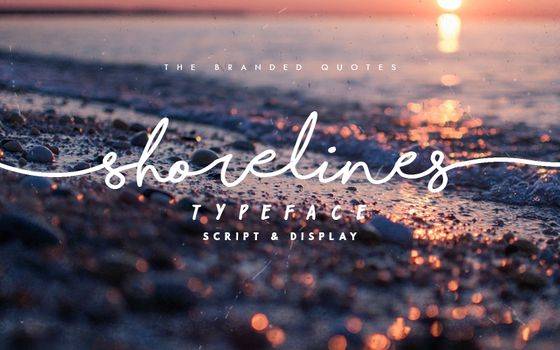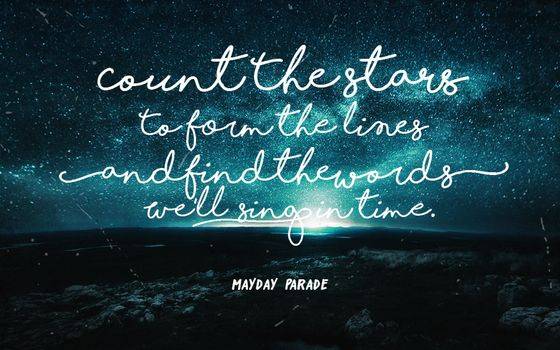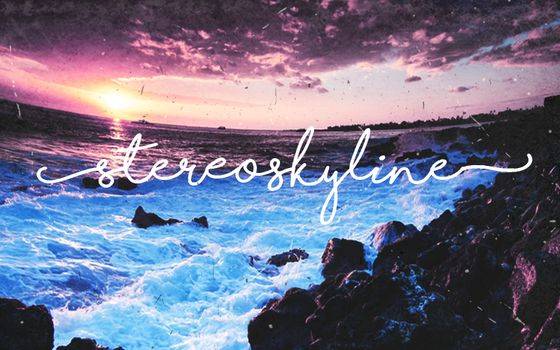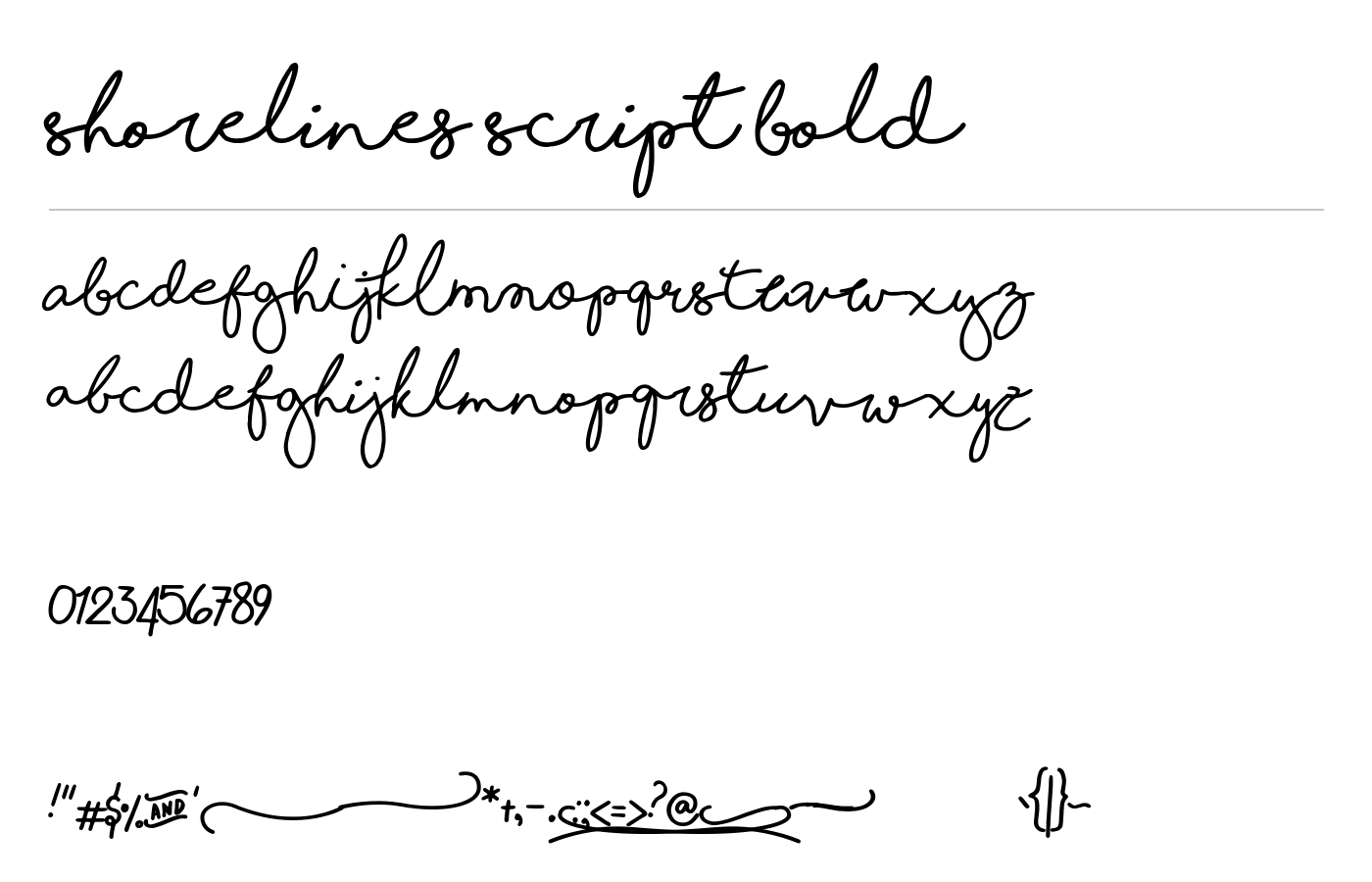
Shorelines Script is a lively and elegant handwritten script font with a bold, flowing style that mimics natural cursive writing. Its playful, connected letterforms and delicate loops bring a friendly, personal touch, making it ideal for branding, invitations, or creative projects that seek a warm and approachable feel. This font works beautifully in logos, packaging, and headlines where a handcrafted, charming personality is desired.
Shorelines Script
About Shorelines Script
| Font family | Shorelines Script |
| Release date | 2015-09-25 |
| Designer | The Branded Quotes |